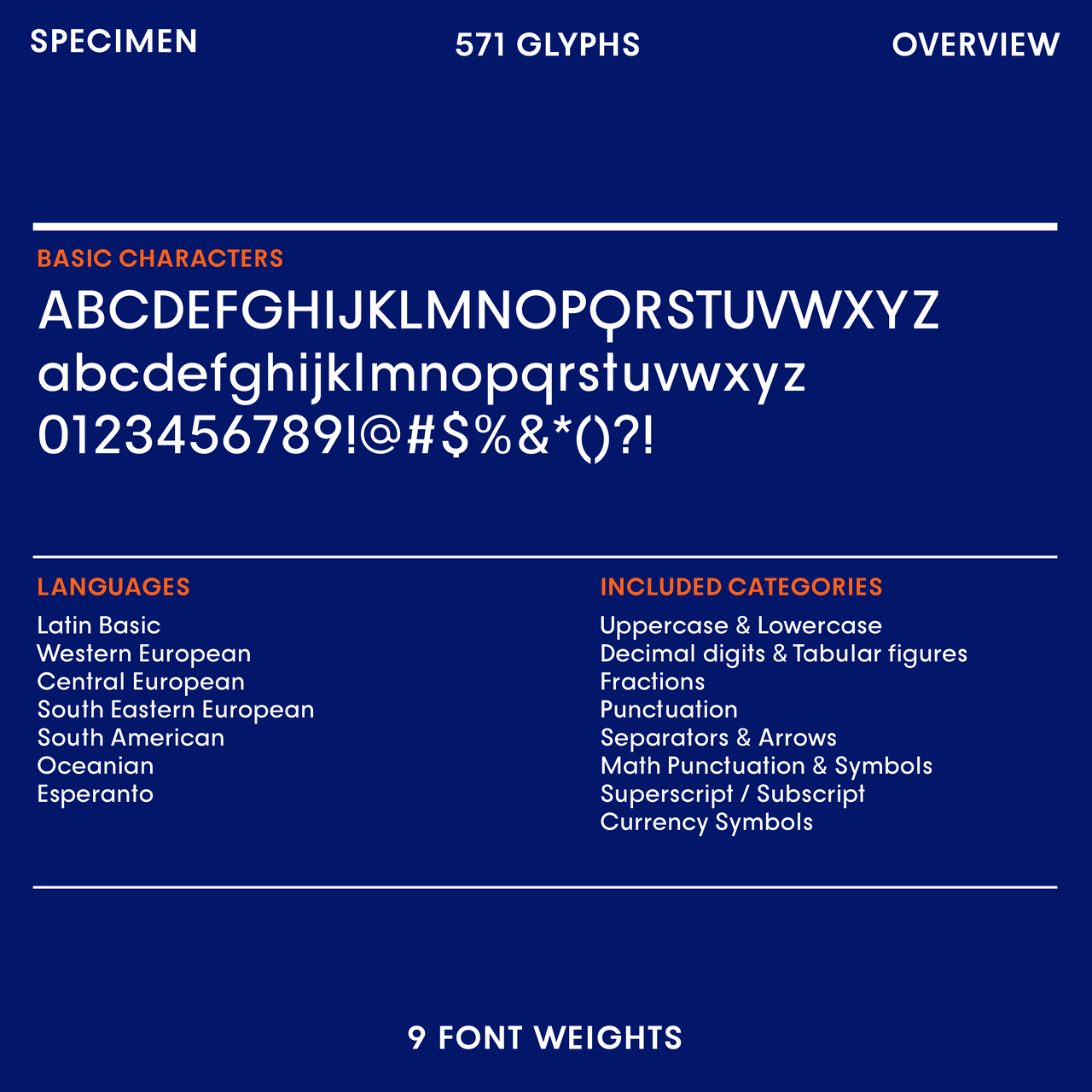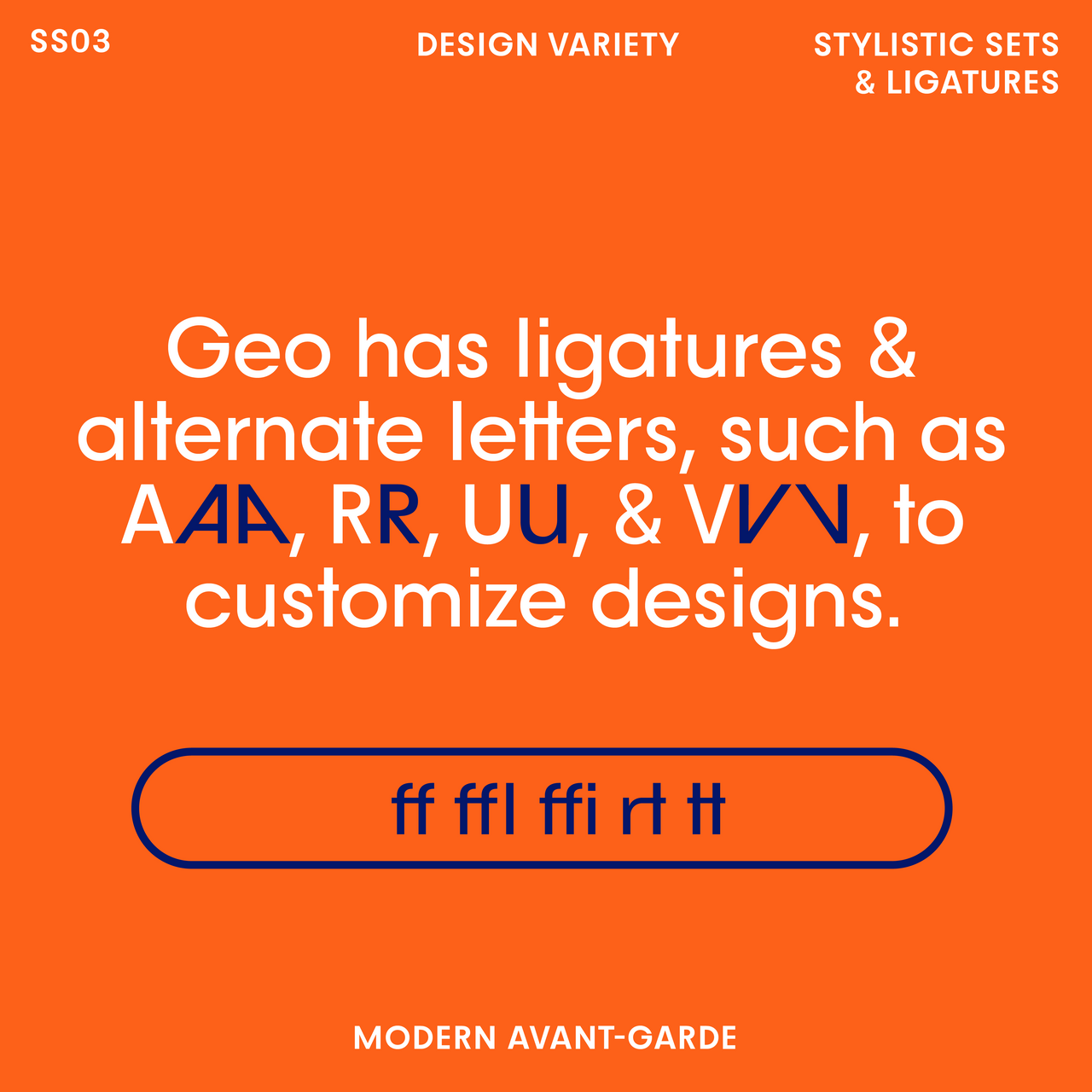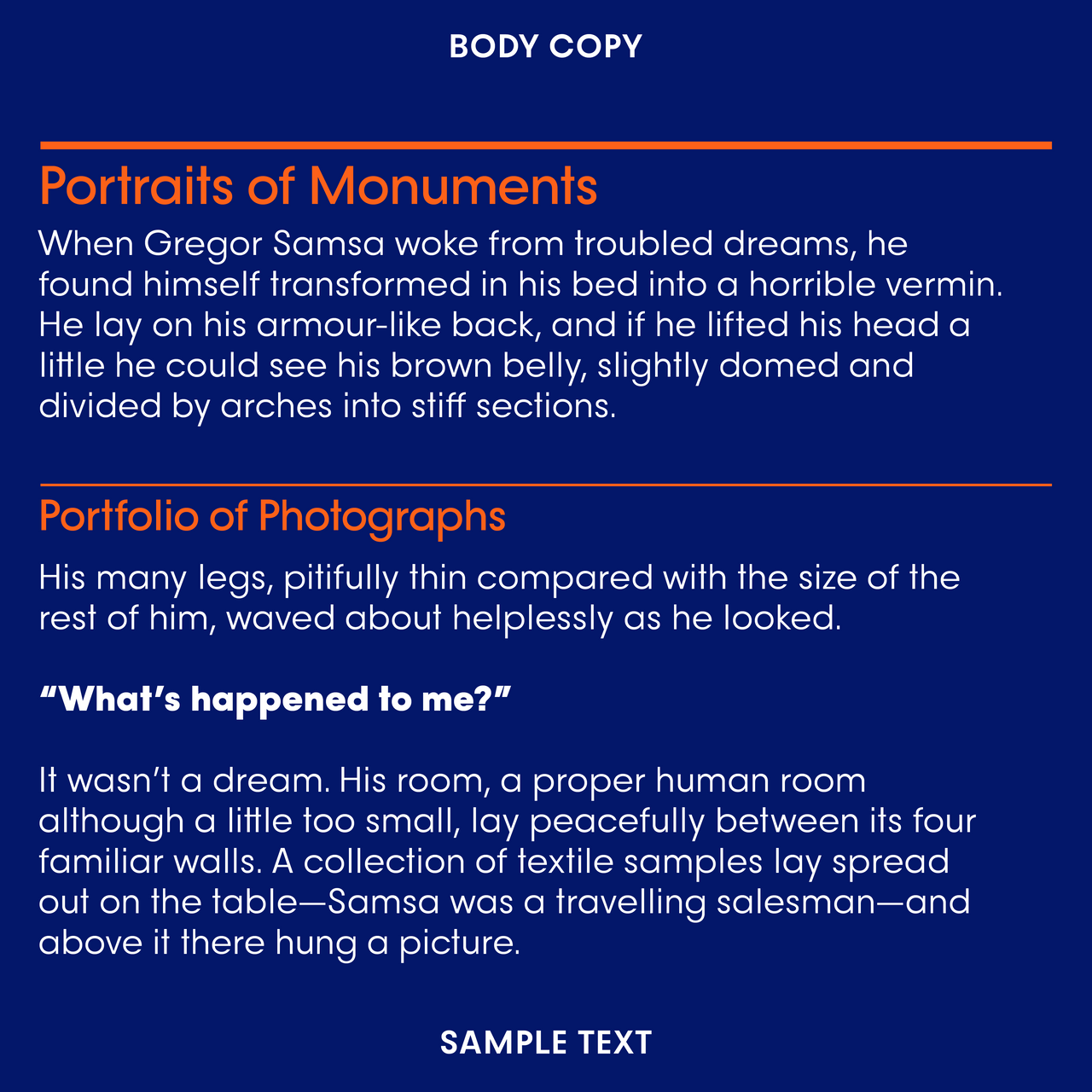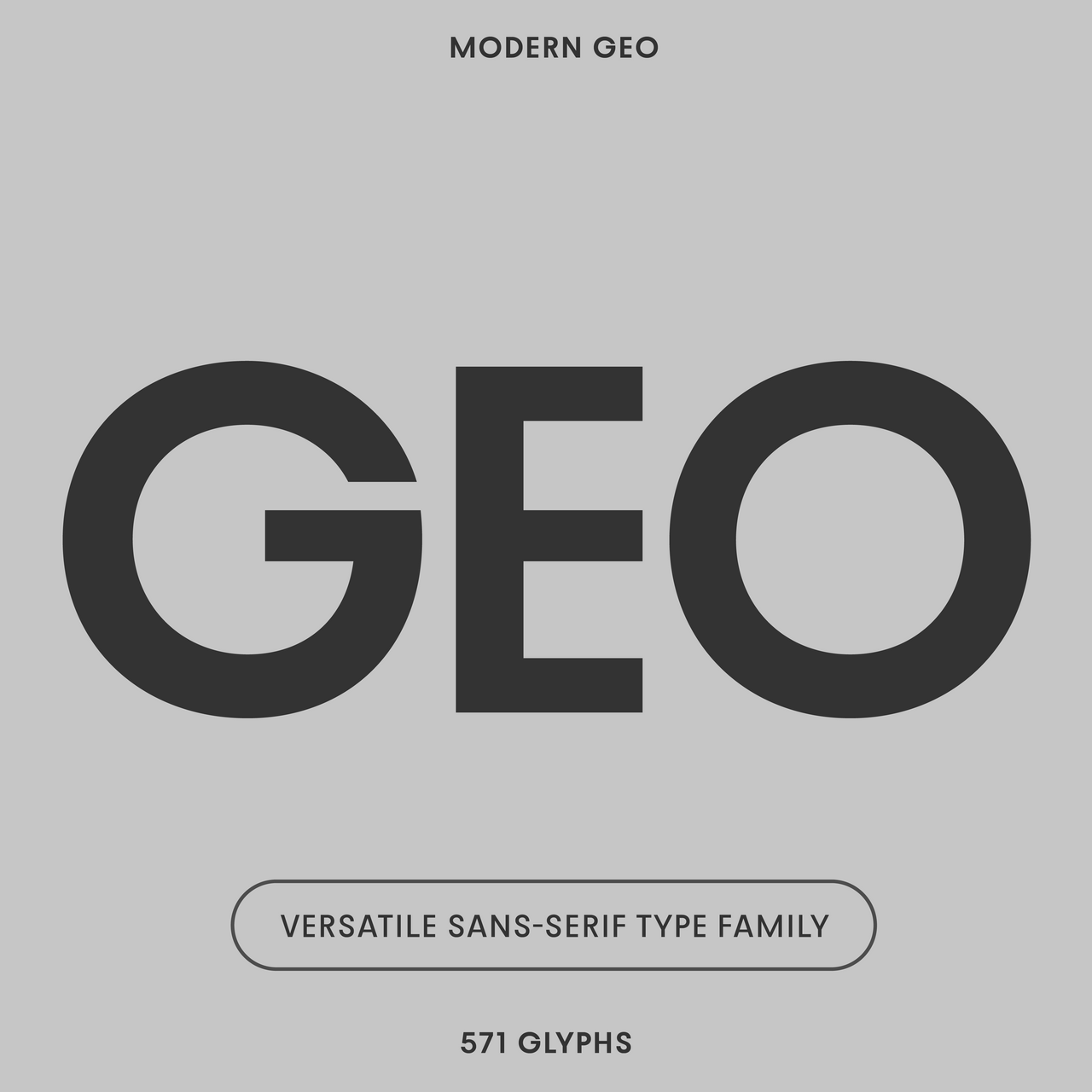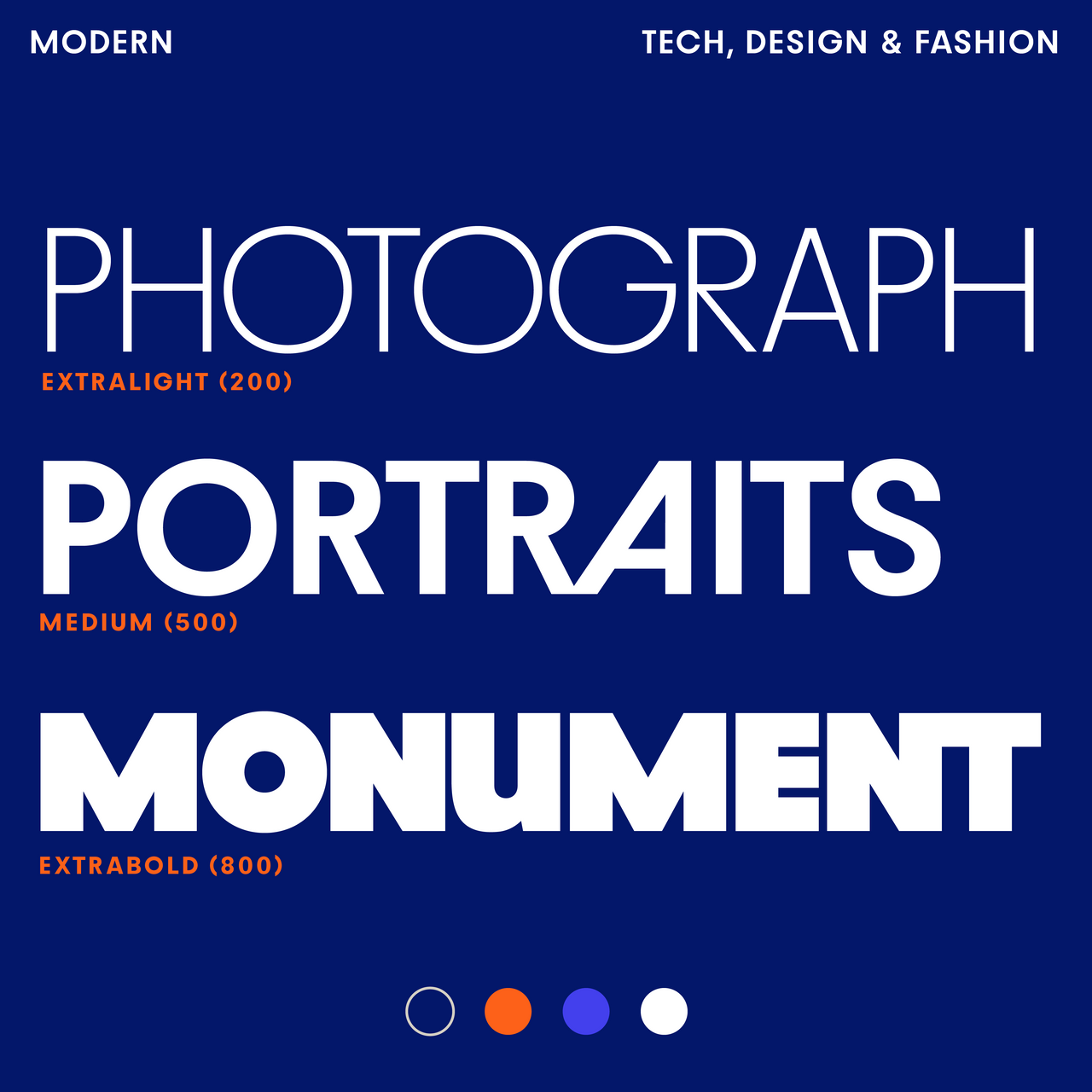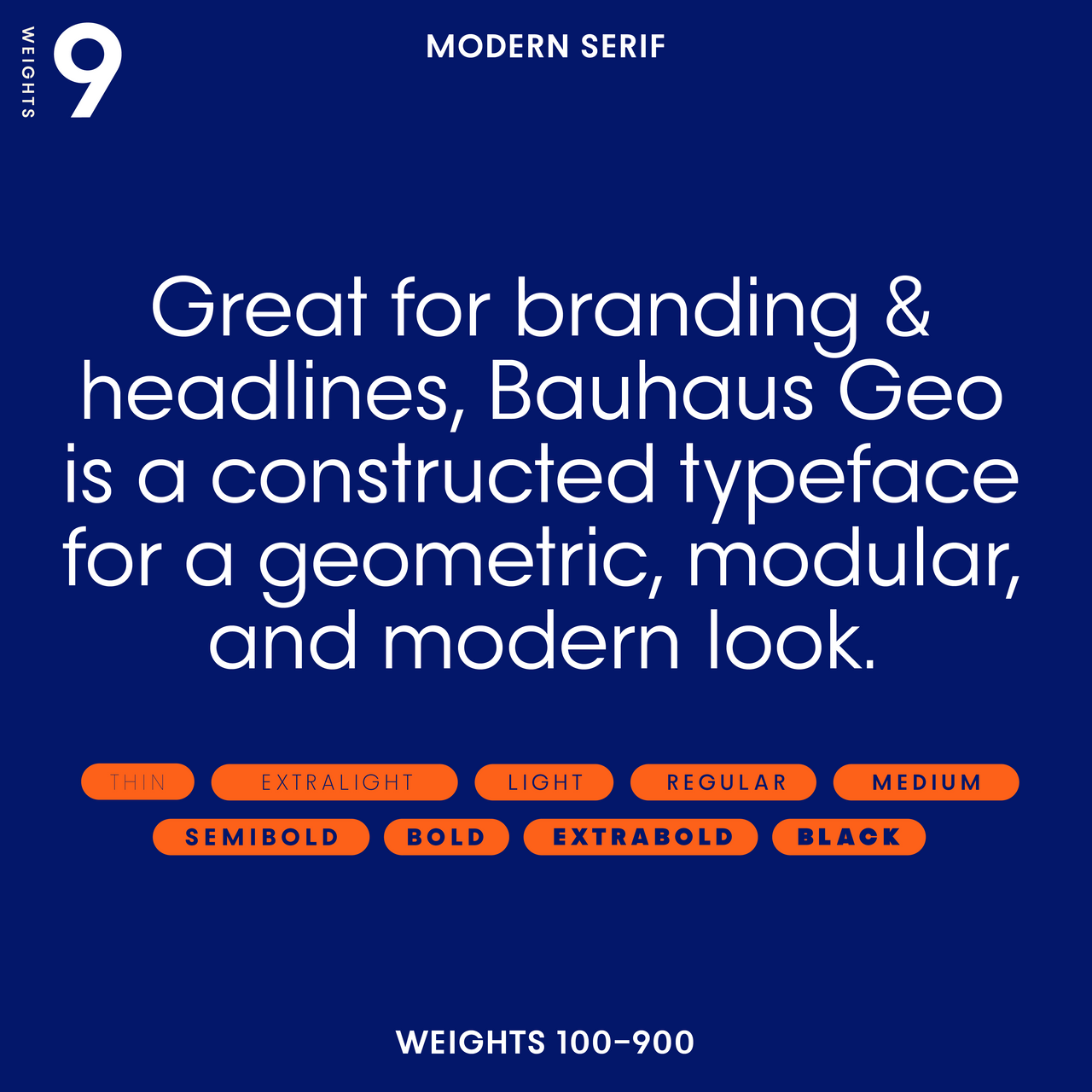
Bauhaus Geo— Geometric, clean sans-serif font, avant-garde alts
Bauhaus Geo is a constructed font for a geometric, modular, but modern look best for branding and headlines. Geo has alternate letters, such as 3 different A and V styles, 2 options for R & U, to customize designs. Select “all 9 styles” from the dropdown to get all nine font weights (Thin to Black).